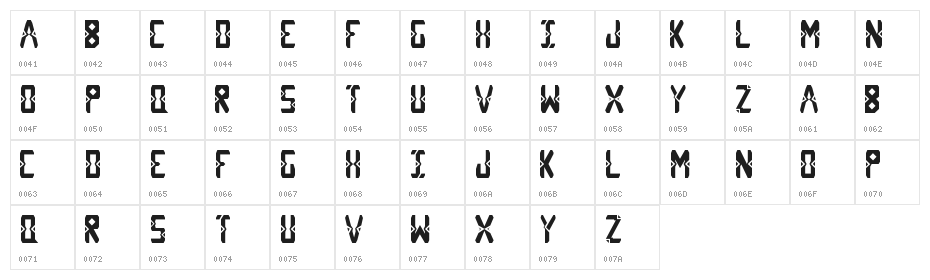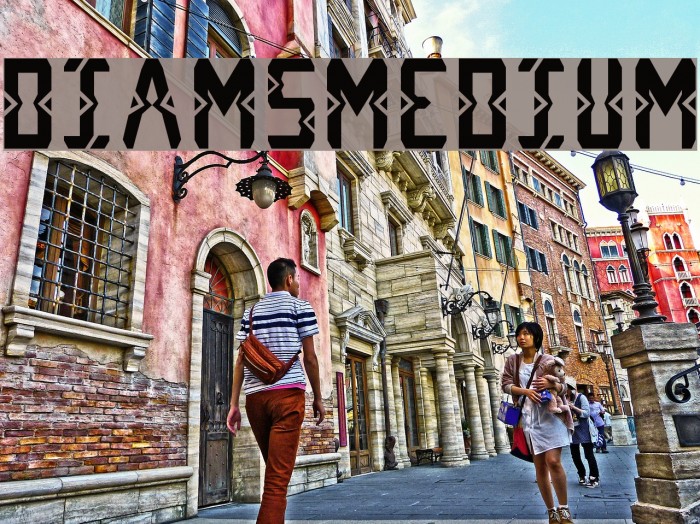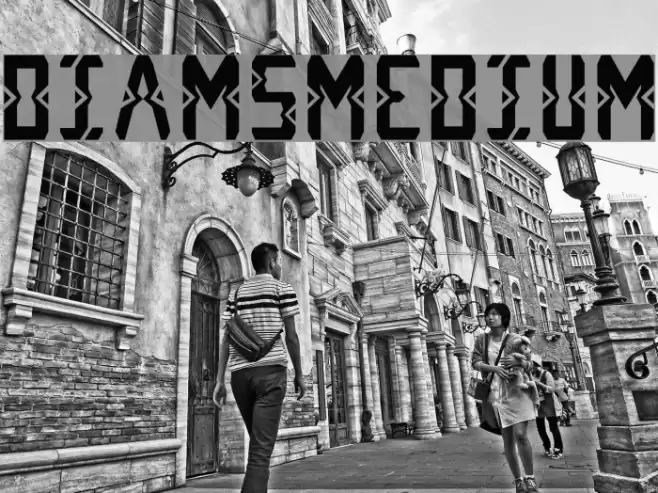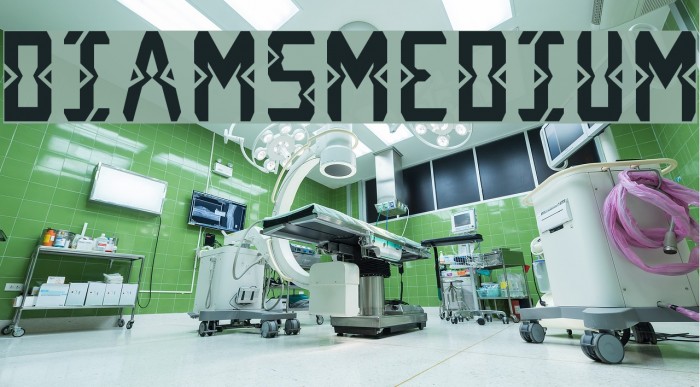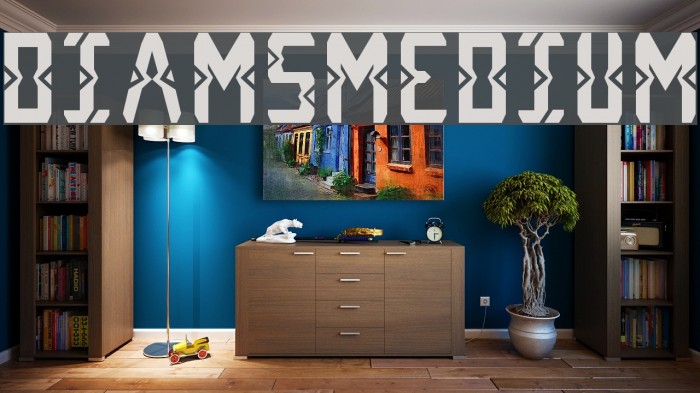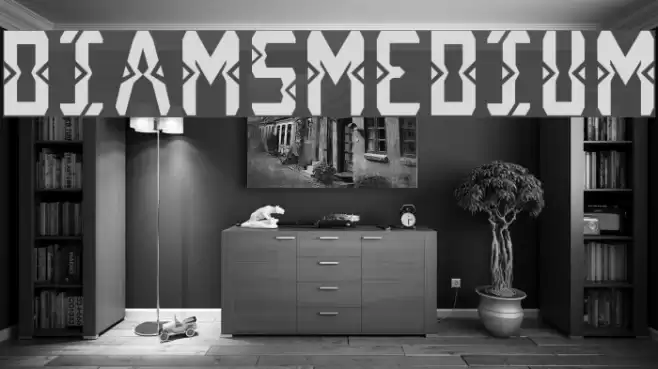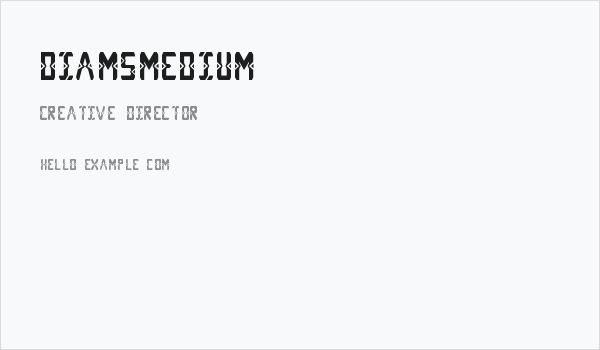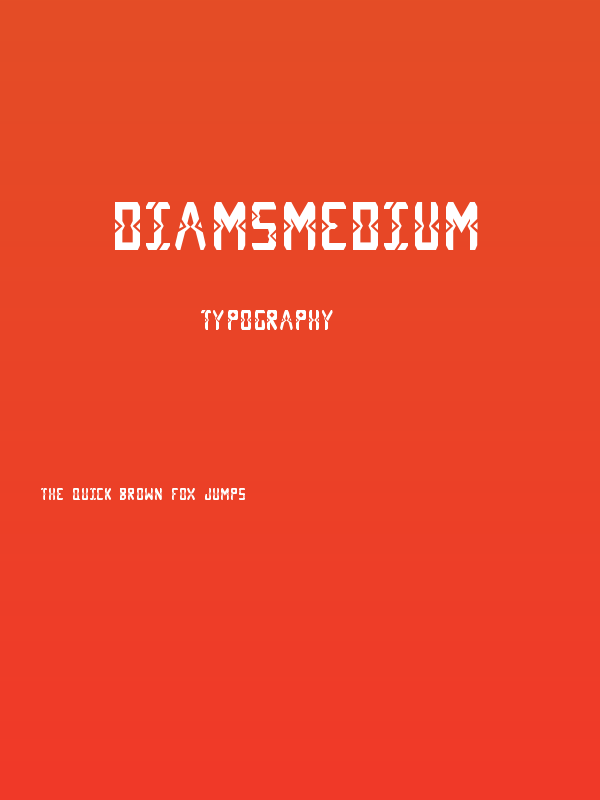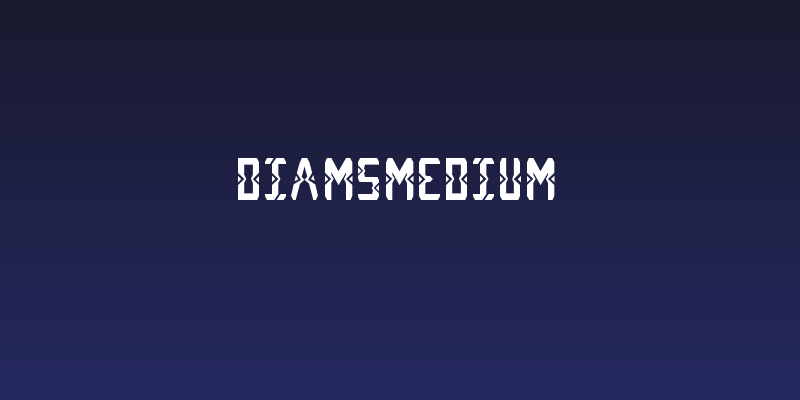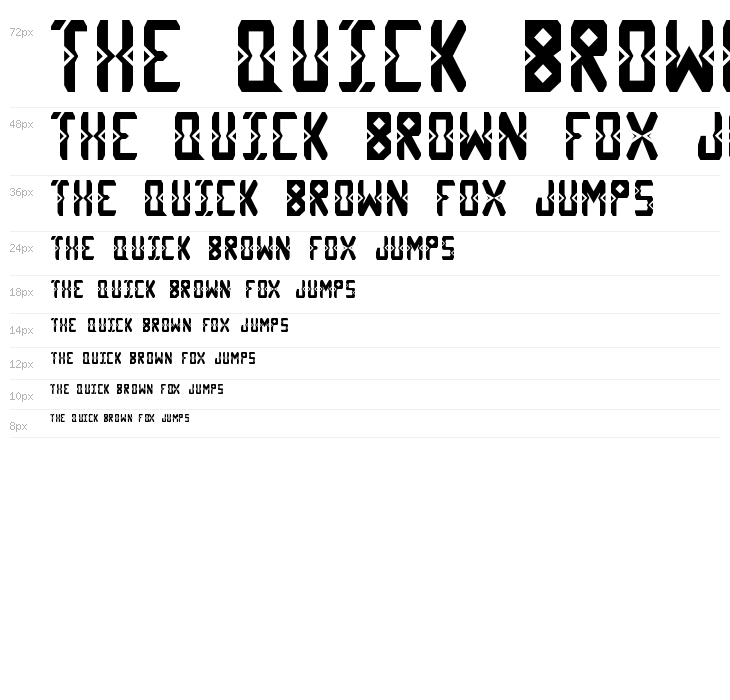
DiamsMedium Font
DiamsMedium Description
This font features a bold, geometric design with a unique angular style. Each character is crafted with sharp edges and distinct cuts, creating a striking visual impact. The letters are uniformly structured, giving a sense of cohesion and balance. The font's design incorporates a modern aesthetic with a touch of futuristic flair, making it stand out in any design context. Its boldness and distinctiveness make it ideal for attention-grabbing headlines and creative projects that require a strong visual presence.
| Proposed Projects | Ideal for branding, posters, and any project requiring a modern, eye-catching typeface. |